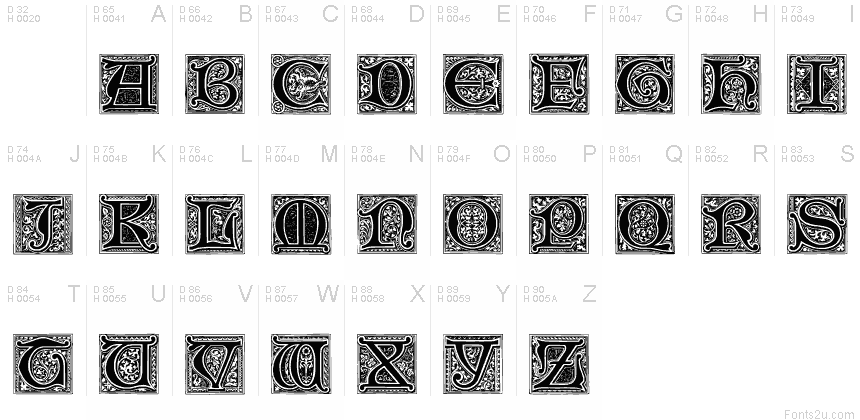
Medieval Victoriana No.2
Medieval Victoriana No.2 font by PJL is a free Gothic initials font with an ornate framed capital style. It uses a rounded, double-outlined letterform inside a square border, with tight corner flourishes and a small scroll-like base that gives the design a carved, old-print feel.
Medieval Victoriana No.2 works well for illuminated initials, chapter openers, bookplates, invitations, and heritage-style logos because the frame turns each letter into a decorative panel. It also suits certificates, poster accents, and historical labels where a single large initial needs to carry the page.